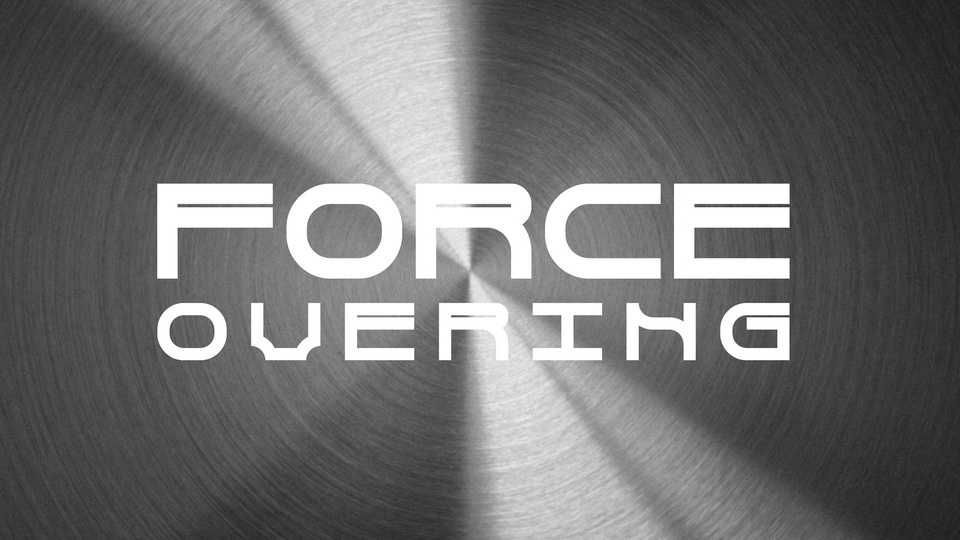
Download Force Overing font, an extension content of a Japanese Hiragana character designing event call #1日1文字ひらがな作字. By standardizing the strokes, unified each part of the character, creating a futuristic typeface that is both fantastical and mechanical at the same time.
Designer: Amari Design